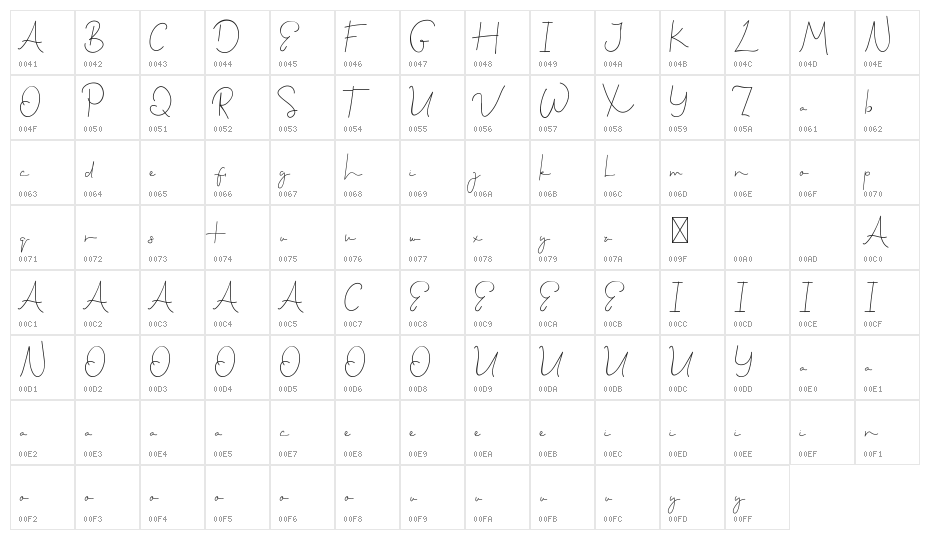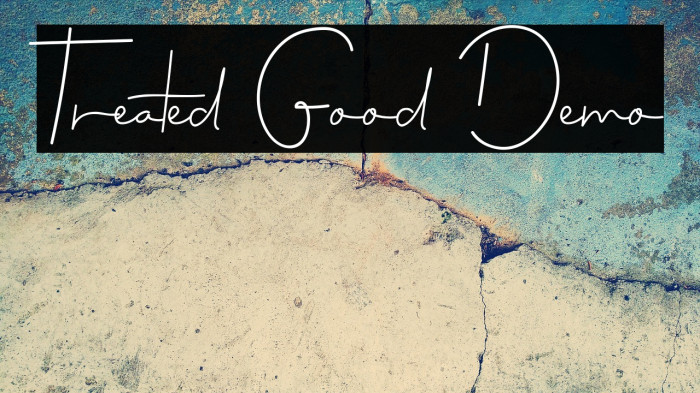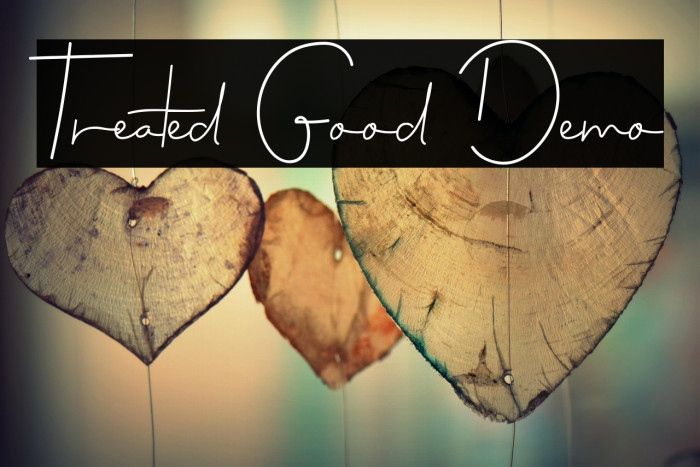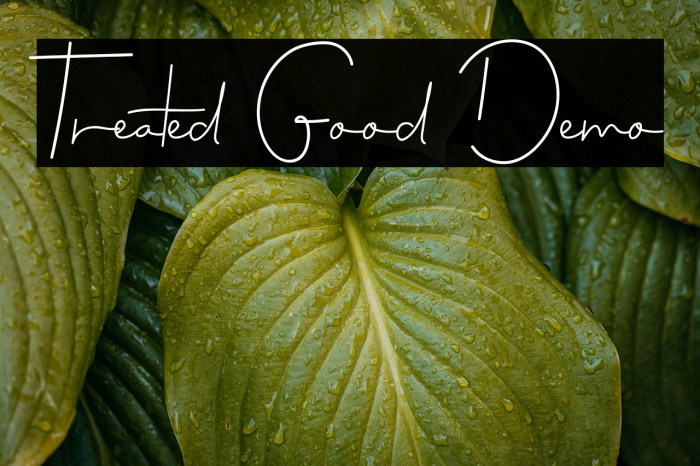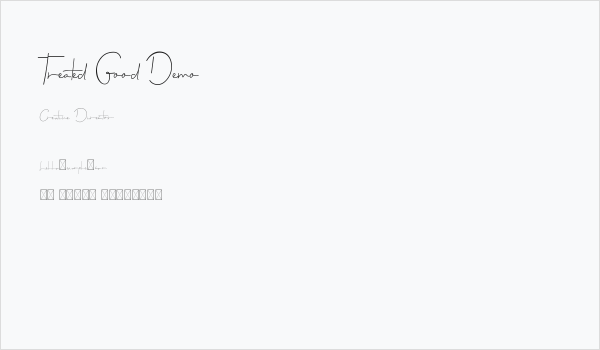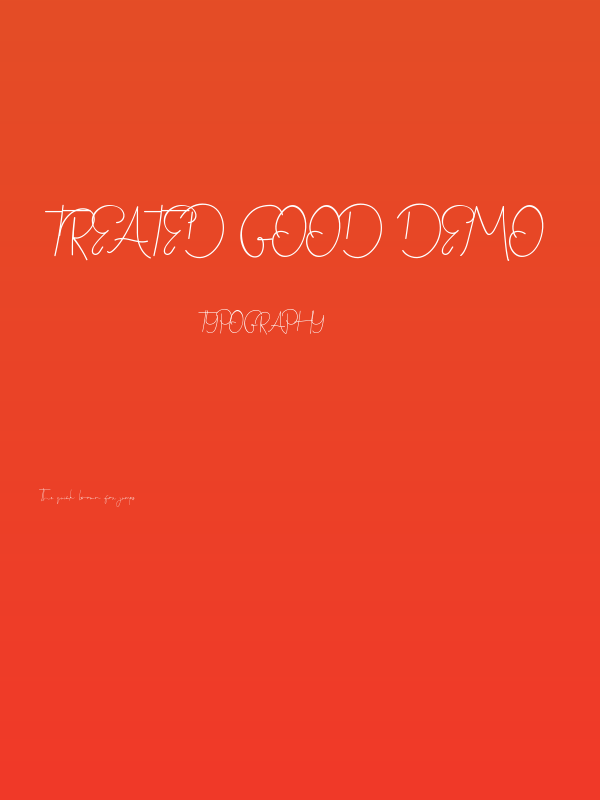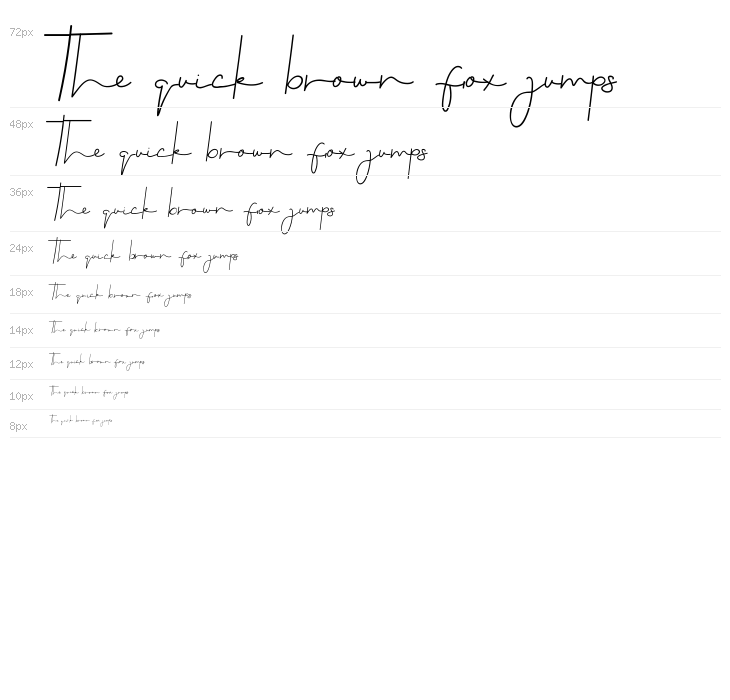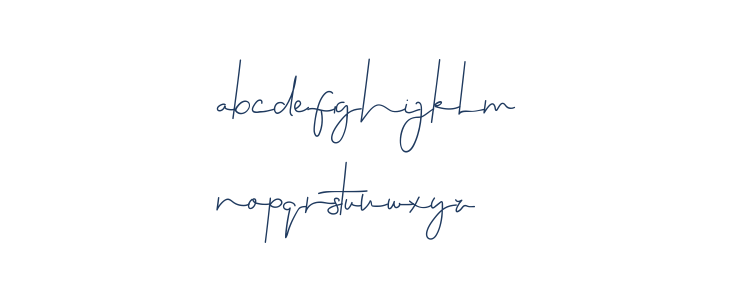
Treated Good Demo Font
Treated Good Demo Description
This font features a unique, hand-drawn style with a whimsical and artistic flair. The letters are characterized by their flowing, cursive-like strokes that give an impression of being written with a fine pen. The uppercase letters are tall and elegant, while the lowercase letters maintain a consistent, fluid motion. The overall appearance is light and airy, with a playful yet sophisticated touch. The font's thin lines and delicate curves make it suitable for creative and artistic projects, adding a personal and informal feel to any design.
| Use Case | Logos, Invitations, Artistic Designs |
| Proposed Projects | Ideal for wedding invitations, greeting cards, personal branding, and artistic projects. |